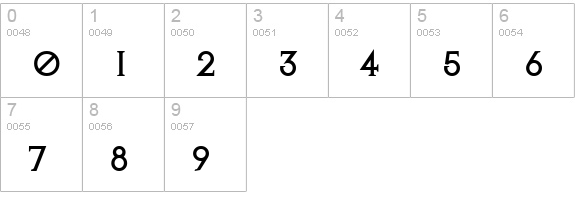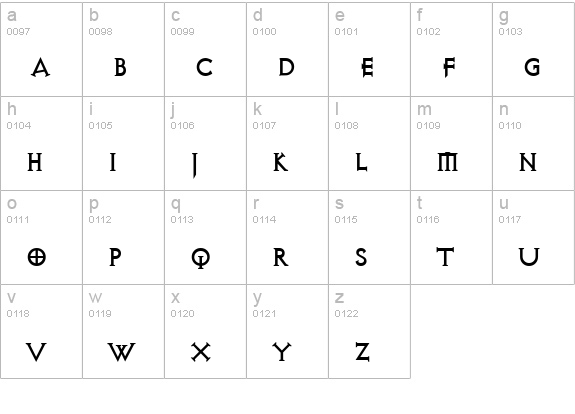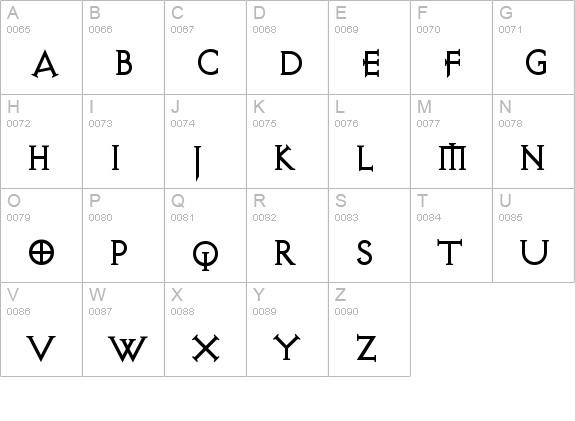
AvQest Font Details
AvQest font is a stunning display typeface that combines modern design elements with a touch of elegance. Its clean lines and unique shapes make it a versatile choice for a wide range of projects, from branding to editorial design. The font features a beautiful contrast between thick and thin strokes, adding a sophisticated look to any text. One of the best things about AvQest font is that it is available for free download at FontsMarket.com. This means that you can easily access this stylish typeface without any cost, making it a great option for designers on a budget or anyone looking to add a touch of class to their projects without breaking the bank. With its timeless appeal and modern flair, AvQest font is sure to make a statement wherever it is used. Download this font today and elevate your designs with its sleek and polished look.